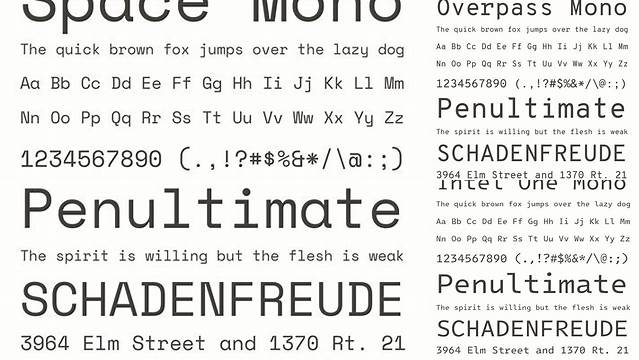
Download Mono Fonts: A Comprehensive Guide
Hey guys! Are you looking to download mono fonts? You've come to the right place! Monospaced fonts, often called mono fonts, are a fantastic choice for coding, creating retro designs, or simply adding a unique touch to your documents. In this comprehensive guide, we'll explore everything about mono fonts: what they are, why you might need them, and where to find the best ones. We'll dive deep into the characteristics that make mono fonts special and discuss how they stand apart from other font types. We'll also cover the various applications where mono fonts shine, from coding environments to graphic design projects. So, if you're ready to learn how to enhance your projects with the perfect mono font, stick around! We will also take a look at some popular mono fonts and what makes them so sought after. You’ll get practical tips on how to select the right font for your needs, considering factors like readability, style, and compatibility with different software and platforms. By the end of this article, you’ll be well-equipped to choose and use mono fonts effectively in all your projects.
What are Mono Fonts?
So, what exactly are mono fonts? The term "mono" here refers to monospaced, meaning each character occupies the same horizontal space. This is different from proportional fonts, where characters have varying widths (like "i" being narrower than "m"). This fixed-width nature is what gives mono fonts their distinctive, uniform appearance. Think of it like each letter having its own little box – no matter the letter, the box size stays the same. This consistency is incredibly useful in certain contexts, which we'll get into shortly. The beauty of mono fonts lies in their ability to provide a structured and consistent look. This makes them particularly valuable in environments where character alignment is crucial, such as coding editors, terminals, and data displays. In proportional fonts, the varying widths of characters can sometimes lead to alignment issues, especially when dealing with large blocks of text or tabular data. With mono fonts, you can ensure that each character lines up perfectly, creating a clean and organized appearance. The uniformity of mono fonts isn’t just about aesthetics; it also has practical implications. For example, in coding, where indentation and spacing are essential for readability and syntax, mono fonts make it much easier to spot errors and understand the structure of the code. This is because the fixed-width nature of the font allows each character to occupy the same amount of space, making it simpler to visually align code blocks.
Why Use Mono Fonts?
Why should you even consider using mono fonts? Well, there are several compelling reasons! Firstly, in coding, they’re a lifesaver. The consistent spacing makes code much easier to read and debug. Imagine trying to scan through lines of code where the characters are all jumbled together – not fun, right? Mono fonts prevent this chaos. Think of those coding tutorials where everything looks so neat and aligned – chances are, they're using a mono font. Secondly, mono fonts have a cool, retro vibe. They remind us of old typewriters and vintage computer terminals, giving your projects a unique, nostalgic feel. This can be particularly effective in design projects where you want to evoke a sense of the past or add a touch of quirky charm. For those into graphic design, mono fonts offer a distinct aesthetic that can make your work stand out. Their clean, geometric shapes can add a sense of modernity and simplicity, while their retro associations can bring a vintage flair. Whether you’re designing a poster, a website, or a logo, incorporating a mono font can be a great way to make a statement. Moreover, mono fonts are fantastic for creating clean, tabular layouts. If you're working with data in spreadsheets or tables, mono fonts ensure that everything lines up perfectly, making it easier to read and interpret the information. The fixed-width nature of the characters means that columns and rows will align neatly, regardless of the content within each cell. This is particularly helpful for financial documents, reports, and any other type of data-heavy presentation. In addition to these practical and aesthetic benefits, using mono fonts can also improve accessibility. For individuals with certain visual impairments, the consistent spacing and clear distinction between characters can make text easier to read. This is an often-overlooked advantage, but it highlights the versatility and inclusivity of mono fonts.
Popular Mono Fonts
Let's talk specifics! Which mono fonts are the rockstars of the font world? Courier New is a classic, often seen as the quintessential mono font. It's simple, clean, and highly readable. However, it can feel a bit dated for some projects. Consolas is another popular choice, especially among developers. It's designed to be highly legible in code editors and terminals. If you're looking for something a little more modern, check out Fira Mono. It's a sleek and stylish option that works well in both coding and design contexts. These are just a few examples, but they give you a taste of the variety available. Each font has its own personality and strengths, so it’s worth exploring different options to find the perfect fit for your project. When choosing a mono font, think about the overall tone and feel you want to convey. Courier New, with its typewriter-like appearance, might be ideal for projects that need a vintage or retro vibe. Consolas, on the other hand, is a great choice for technical documents and coding environments where clarity and readability are paramount. Fira Mono strikes a balance between modernity and functionality, making it suitable for a wide range of applications. In addition to these widely used fonts, there are many other excellent mono fonts worth considering. Source Code Pro, for example, is a popular choice among programmers due to its clean lines and distinctive character shapes. IBM Plex Mono is another solid option, offering a modern and versatile design that works well in both digital and print contexts. When comparing different mono fonts, pay attention to subtle details like the shape of the characters, the spacing between letters, and the overall weight and contrast. These factors can have a significant impact on readability and visual appeal. It’s also a good idea to test out different fonts in your specific use case to see how they perform in real-world scenarios.
How to Choose the Right Mono Font
Choosing the right mono font can feel like a big decision, but don't worry! Here’s a simple guide to help you navigate the process. First, consider your project's purpose. Are you coding? Designing a poster? Writing a report? The context will heavily influence your choice. For coding, you'll want a font that's highly readable and clearly distinguishes between similar characters (like 0 and O, or 1 and l). For design projects, you might prioritize aesthetics and personality. Do you want something sleek and modern, or something more retro and quirky? Next, think about readability. A font might look cool, but if it's hard to read, it's not practical. Test out different fonts in your target environment (e.g., your code editor, your design software) and see how they look in context. Don't just look at individual characters; look at blocks of text to get a sense of overall legibility. Another important factor to consider is the font’s character set. Does it include all the characters you need, including special symbols and diacritics? This is particularly important if you’re working with multiple languages or need to use specific technical symbols. A comprehensive character set ensures that your font will work seamlessly in all your projects. Furthermore, pay attention to the font's weight and style options. Some mono fonts come in a variety of weights (e.g., light, regular, bold) and styles (e.g., italic, oblique). Having these options can give you greater flexibility in your design and ensure that your text remains readable in different contexts. For example, a bold weight might be useful for headings, while a lighter weight might be better for body text. Finally, don’t be afraid to experiment! Try out different fonts and see what works best for you. There’s no one-size-fits-all answer, and the perfect font is often a matter of personal preference.
So, there you have it! A comprehensive guide to download mono fonts and use them effectively. Mono fonts are incredibly versatile, offering both practical benefits and aesthetic appeal. Whether you're a coder, a designer, or simply someone who appreciates a unique typeface, mono fonts are a fantastic tool to have in your arsenal. Remember to explore different options, consider your project's needs, and don't be afraid to experiment. With the right mono font, you can elevate your projects and make a lasting impression. Happy font hunting, guys! By understanding what mono fonts are, why they’re useful, and where to find them, you’re now well-equipped to make informed decisions about your typography. From enhancing code readability to adding a retro touch to your designs, mono fonts offer a wide range of possibilities. Remember to always consider the context of your project and choose a font that aligns with your overall goals and aesthetic. With a little practice and experimentation, you’ll be able to master the art of using mono fonts and create visually stunning and effective designs. So go ahead, explore the world of mono fonts, and discover the perfect typeface for your next project!